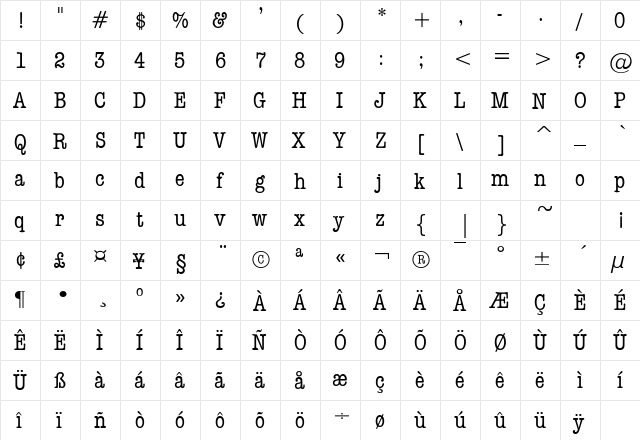
DatelineCondensed Plain
Design Context for DatelineCondensed Typeface
DatelineCondensed is a composed and adaptable typeface that performs quietly and consistently across a wide range of design contexts. The condensed width makes it efficient for tight spaces without sacrificing legibility.